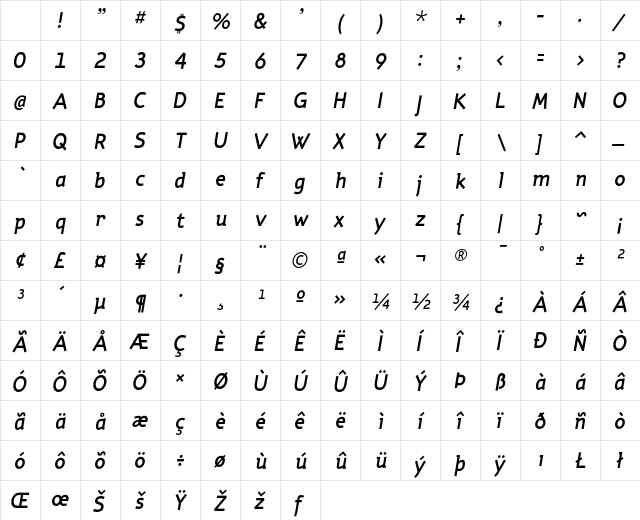
Torus is a composed and adaptable typeface that performs quietly and consistently across a wide range of design contexts. The slanted form adds forward momentum and visual energy.